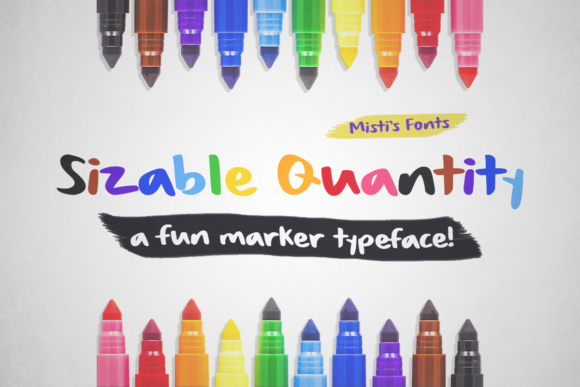
Introducing Sizable Quantity, the extraordinary script font that captivates and enthralls. This meticulously crafted typeface, a brainchild of the talented Misti, is a testament to artistry and innovation in the realm of digital typography.
Sizable Quantity is not merely a collection of letters and symbols; it's an expression of individuality and audacity. With its lively strokes and authentic marker-like texture, this font breathes life into your designs, transforming them into captivating masterpieces.
Imagine the impact of your logos, advertisements, social media creations, quotes, and website content when adorned with Sizable Quantity. Its bold presence commands attention, leaving an unforgettable impression on your audience. Whether you're a seasoned designer or a novice enthusiast, Sizable Quantity empowers you to unleash your creativity and make a statement with every project.
Gone are the days of bland and uninspiring fonts. Sizable Quantity ignites your imagination, allowing you to weave captivating narratives through your visual creations. Let your designs speak volumes, expressing boldness, confidence, and an unwavering commitment to excellence.
With Sizable Quantity, you unlock a world of endless possibilities. Its versatility knows no bounds, adapting seamlessly to a myriad of design styles and platforms. From sleek logos that exude professionalism to eye-catching social media graphics that demand attention, Sizable Quantity elevates your designs to new heights.
Don't settle for ordinary fonts that blend into the background. Embrace the power of Sizable Quantity and watch your designs come alive with energy and charisma. Every word, every letter, every stroke carries the weight of authenticity and creativity, captivating your audience and leaving them spellbound.
Sizable Quantity is more than just a font; it's an experience. It's the embodiment of artistic freedom, empowering you to break free from convention and leave an indelible mark on the world of design. Its bold strokes and organic charm create a lasting impact that resonates with your audience, evoking emotions and inspiring connections.